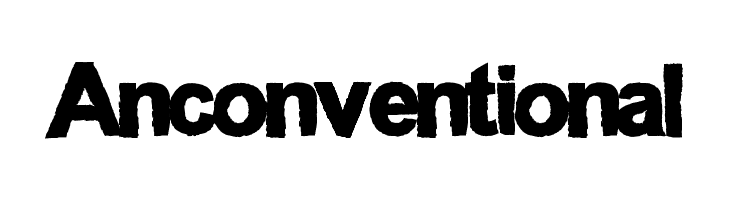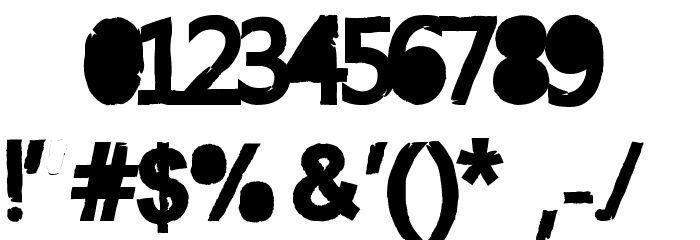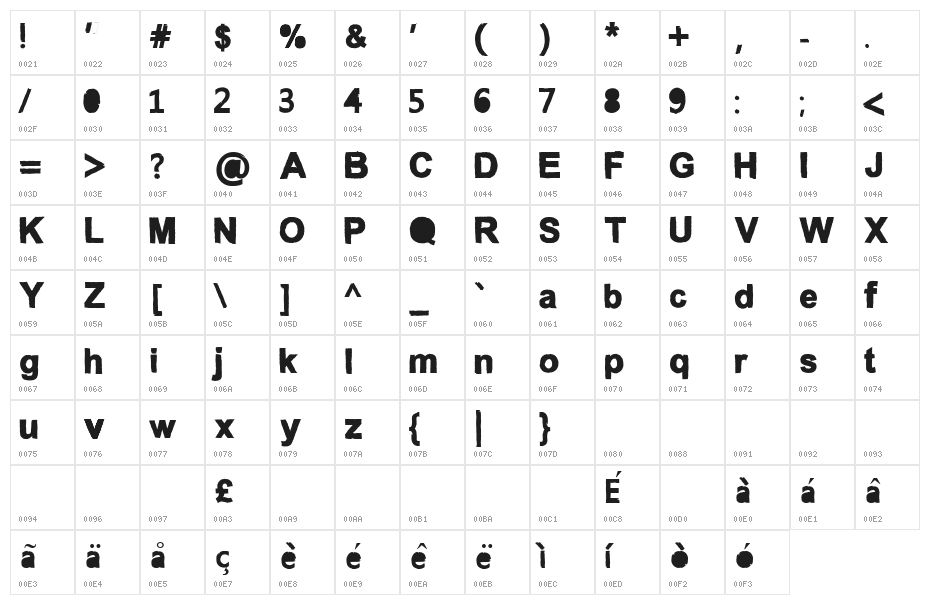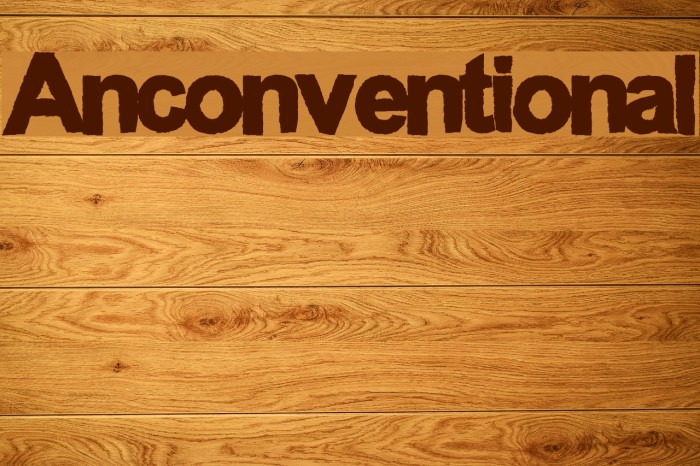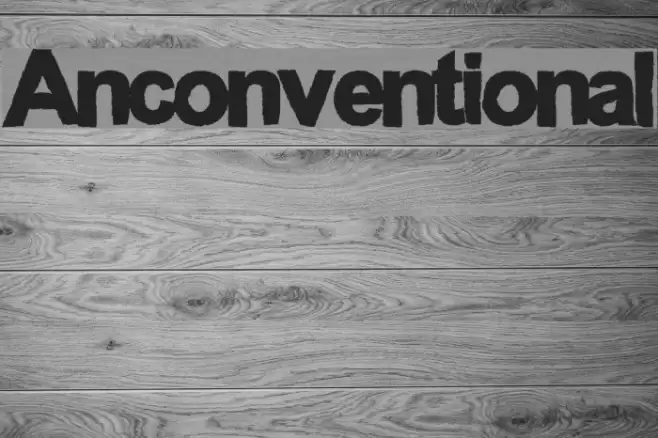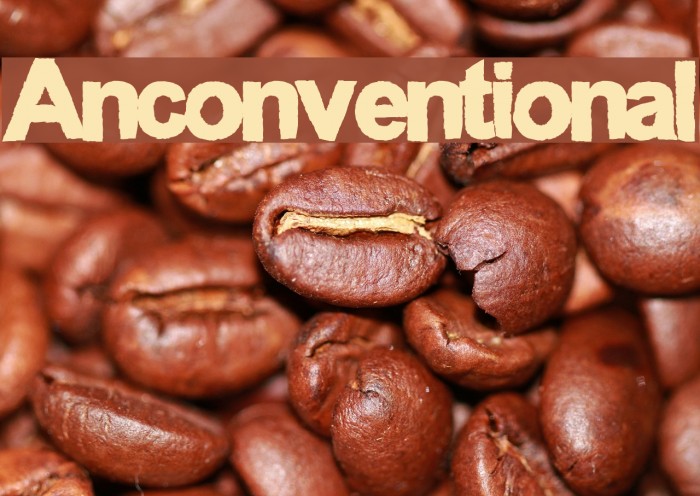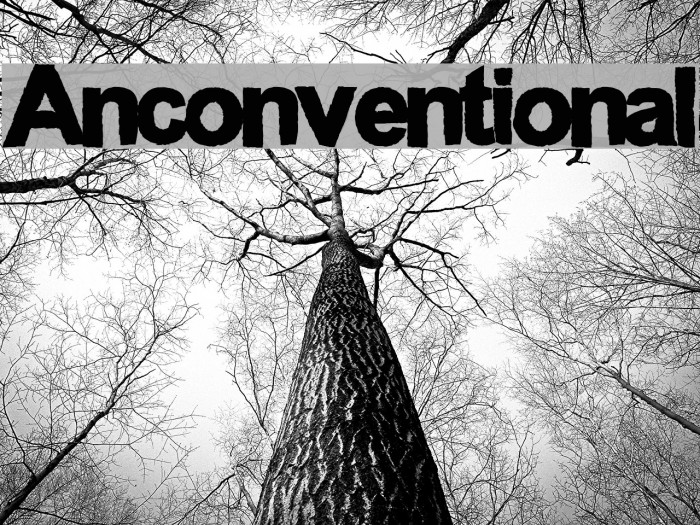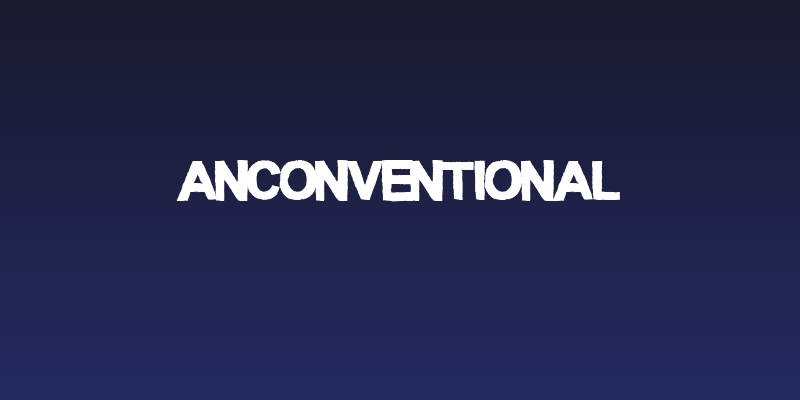
Anconventional Font
Anconventional Description
This font features a bold and impactful design with thick, heavy strokes that create a strong visual presence. The characters are uniformly bold, with a slightly distressed texture that adds a rugged, vintage feel. The uppercase and lowercase letters maintain a consistent width, contributing to a cohesive appearance. The numbers and special characters follow the same bold style, ensuring uniformity across all elements. The font's boldness and texture make it suitable for projects that require a strong, attention-grabbing typeface.
| Proposed Projects | Ideal for posters, headlines, branding, and any design that needs a strong, impactful typeface. |